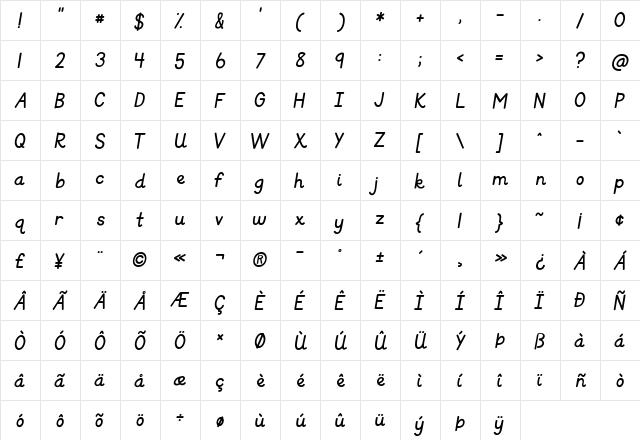
KG Primary Italics Regular
| Foundry | Kimberly Geswein |
| Designer | Kimberly Geswein |
Design Context for KG Primary Italics Typeface
KG Primary Italics offers clean, dependable letterforms without strong stylistic allegiance, making it a practical choice for designers who need flexibility. Its italic angle brings a sense of urgency and motion to the letterforms.
Pro Tip: Try KG Primary Italics for annotation and caption copy alongside an upright companion — the contrast in angle creates a dynamic but ordered typographic system.